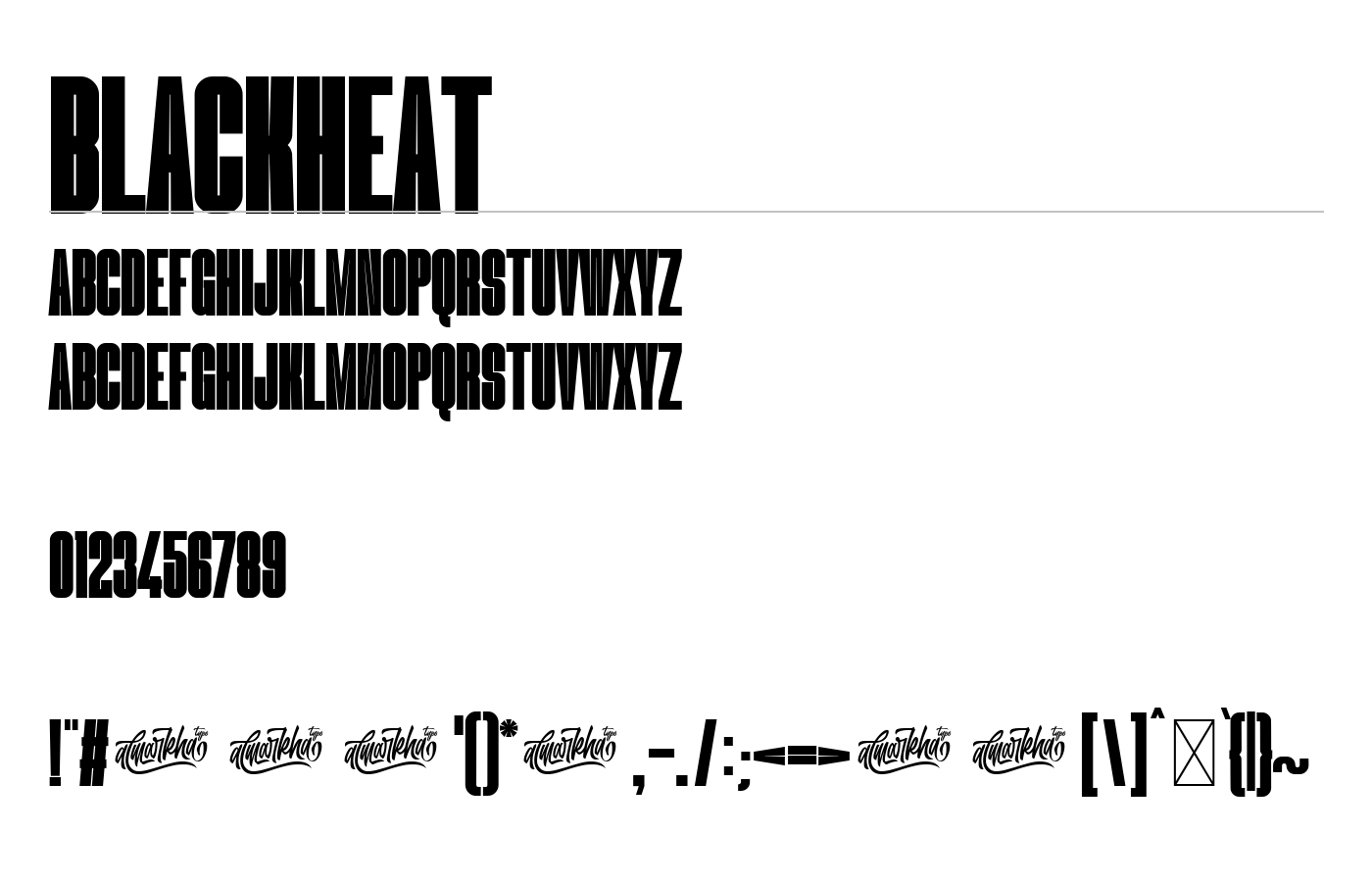
Blackheat is a bold, condensed sans serif font that commands attention with its tall, tightly spaced letterforms and strong, blocky presence. Its high contrast between thick strokes and minimal curves gives it a powerful, industrial feel, making it ideal for striking headlines, logos, and branding that require a modern, impactful style. This font works best in designs where boldness and intensity are key, such as posters, packaging, and fashion branding, adding a sharp and confident voice to any project.
Blackheat Font
About Blackheat Font